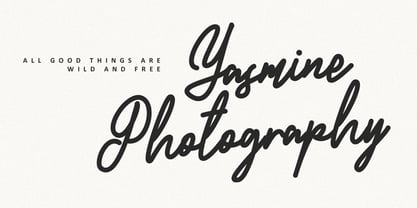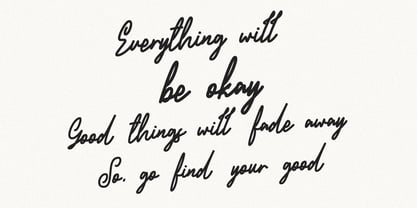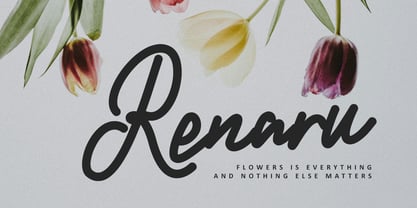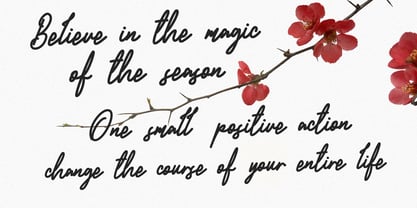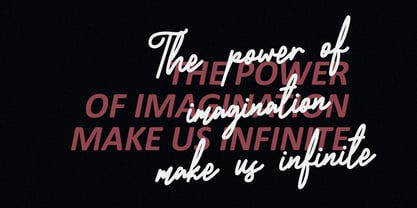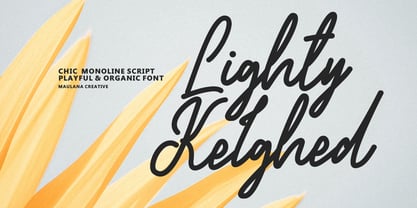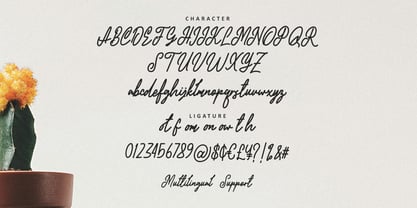
MC Lighty Kelghed
by Maulana Creative
The MC Lighty Kelghed Font Family was designed by Gilang Maulana and published by Maulana Creative. MC Lighty Kelghed contains 1 styles. More about this family
Lighty Kelghed is a stylish monoline script font that strikes a perfect balance between playful energy and organic elegance. Characterized by its consistent stroke weight and fluid, rhythmic transitions, this font captures the essence of modern hand lettering with a sophisticated twist. It features a comprehensive set of characters, including unique ligatures that enhance its natural, handwritten flow. Whether you are designing a high end photography logo, seasonal greeting cards, or inspirational social media quotes, Lighty Kelghed provides a warm, authentic feel that is both chic and approachable. Its versatile nature makes it an excellent choice for branding projects that require a touch of personality and creative flair.
Designers: Gilang Maulana
Foundry: Maulana Creative